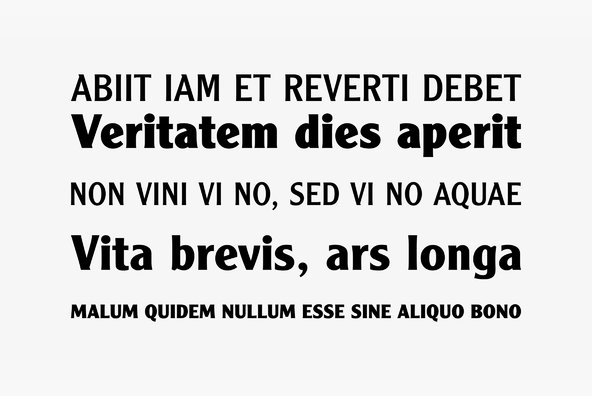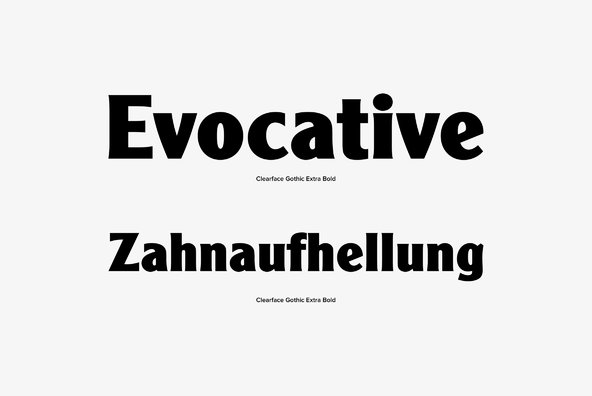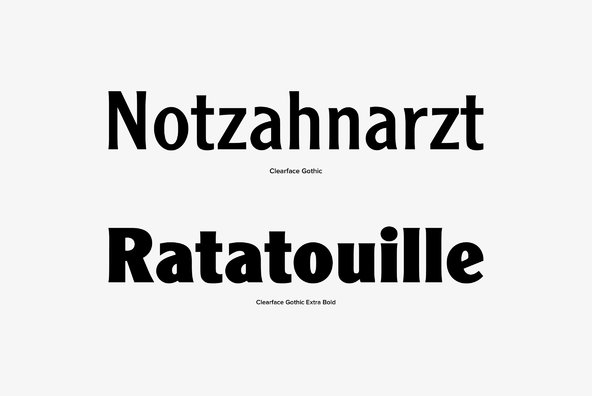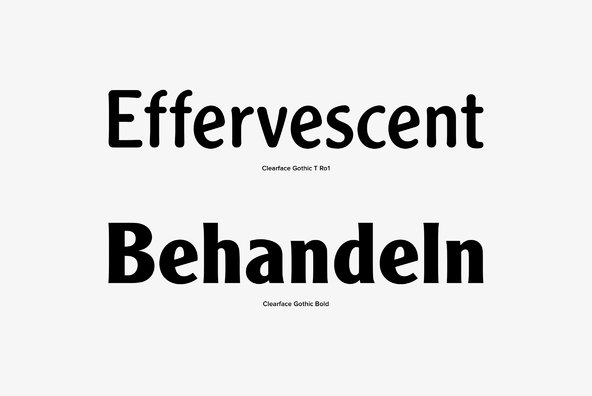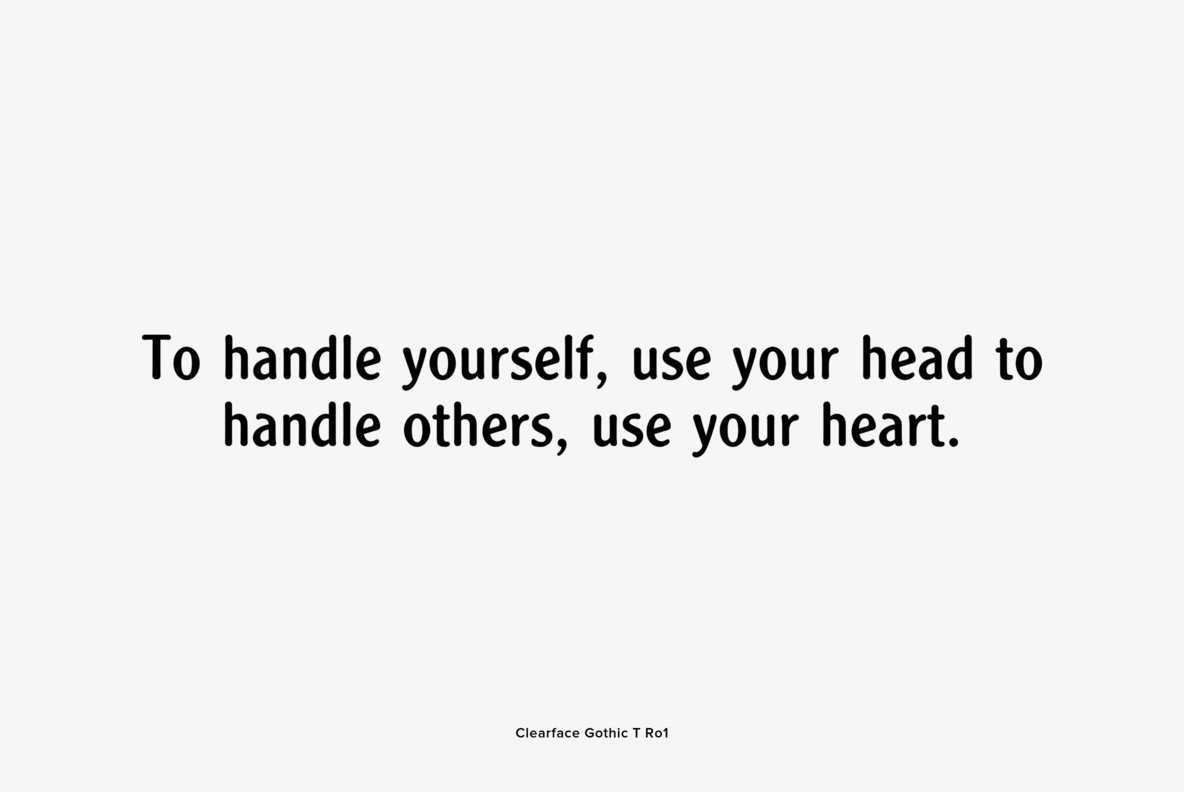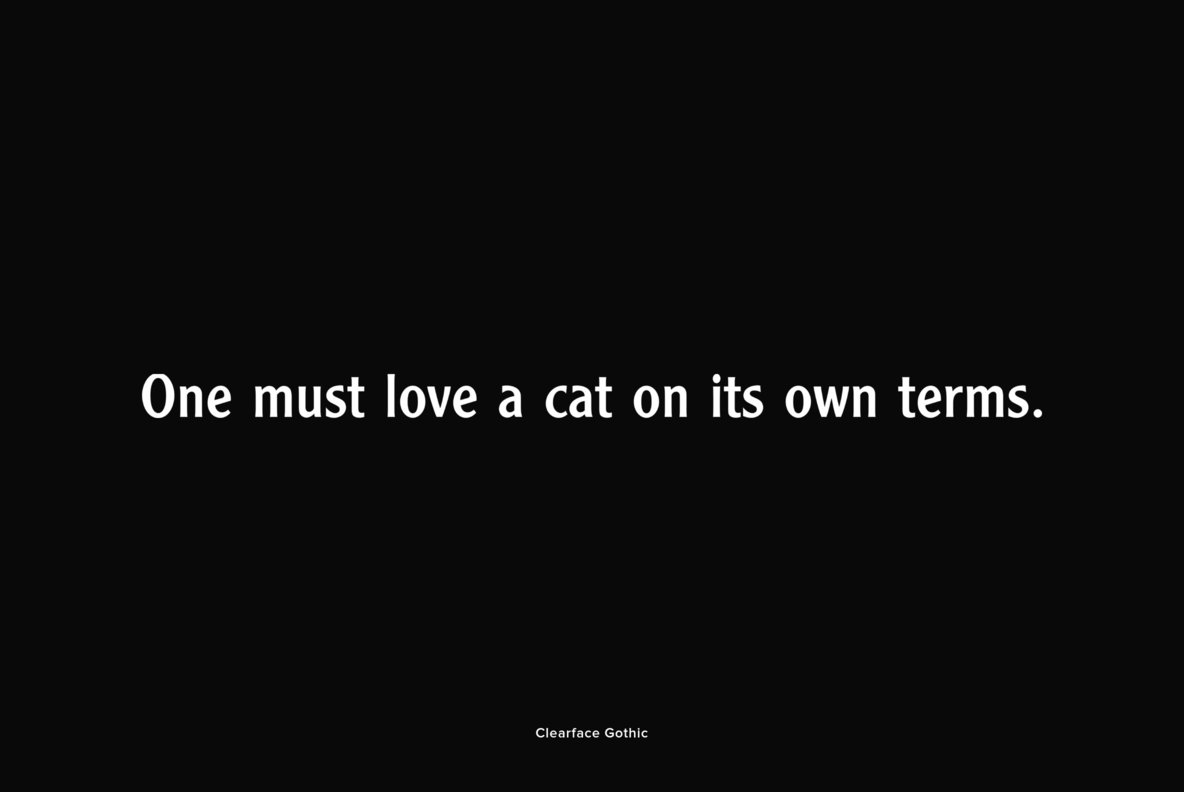
Clearface Gothic is a sans-serif with only a distant resemblance to the original Clearface design. It was designed by Morris Fuller Benton in 1906 and cast by American Type Founders.